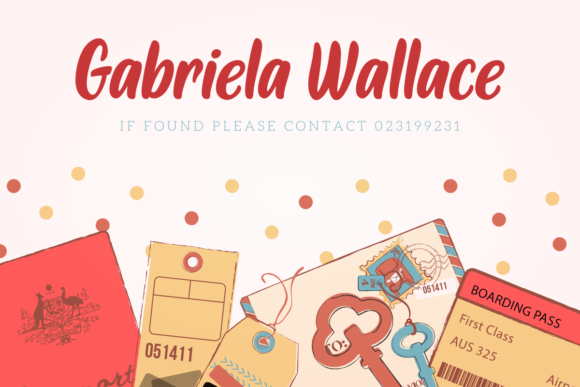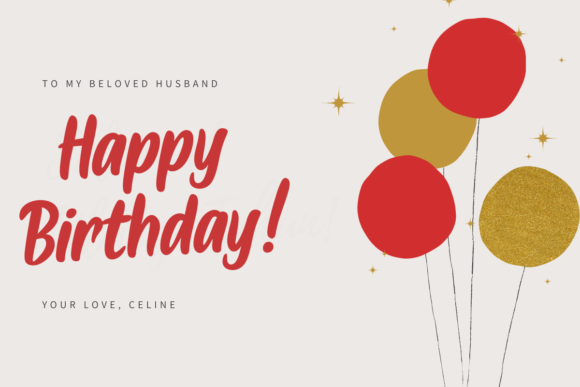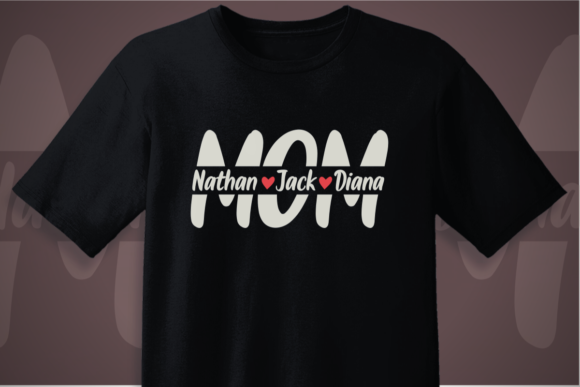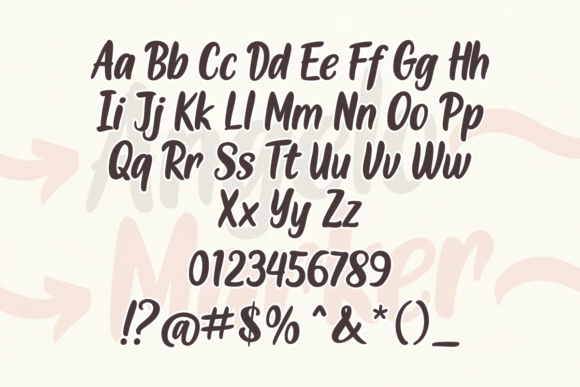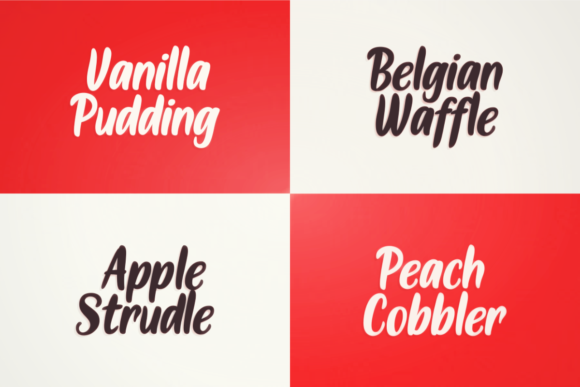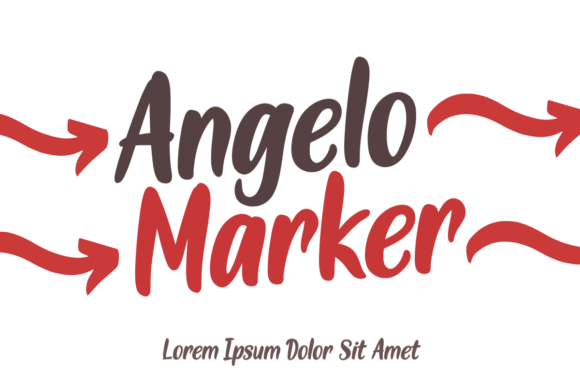
Introducing Angelo Marker Font: Elevate Your Designs with a Cool and Neat Lettered Paint Brushed Handwritten Font
Are you tired of using the same old fonts in your designs? Do you want to add a touch of personality and whimsy to your creations? Look no further than Angelo Marker Font, a cool and neat lettered paint brushed handwritten font that’s sure to become a staple in your font library. In this article, we’ll dive into the features and benefits of Angelo Marker Font, and explore how it can elevate your designs to the next level.
What is Angelo Marker Font?
Angelo Marker Font is a beautifully crafted handwritten font that’s designed to mimic the look and feel of paint-brushed letters. With its unique blend of elegance and playfulness, this font is perfect for designers and crafters who want to add a personal touch to their work. Whether you’re creating a logo, a poster, or a social media graphic, Angelo Marker Font is sure to make your design stand out from the crowd.
Key Features of Angelo Marker Font
- Handwritten style: Angelo Marker Font has a distinctly handwritten feel that’s perfect for creating personal and engaging designs.
- Paint-brushed texture: The font features a beautiful paint-brushed texture that adds depth and visual interest to your designs.
- Cool and neat lettering: The lettering in Angelo Marker Font is both cool and neat, making it perfect for designs that require a touch of sophistication.
- Versatile: This font can be used for a wide range of design projects, from logos and posters to social media graphics and more.
Benefits of Using Angelo Marker Font
So why should you choose Angelo Marker Font for your designs? Here are just a few benefits of using this amazing font:
- Elevate your designs: Angelo Marker Font has the potential to elevate any creation, adding a touch of personality and whimsy that’s sure to engage your audience.
- Stand out from the crowd: With its unique and eye-catching design, Angelo Marker Font is sure to make your design stand out from the crowd.
- Easy to use: This font is incredibly easy to use, and can be easily integrated into your design workflow.
- High-quality: Angelo Marker Font is a high-quality font that’s designed to deliver exceptional results, every time.
How to Use Angelo Marker Font in Your Designs
Using Angelo Marker Font in your designs is easy. Here are a few tips to get you started:
- Pair it with other fonts: Angelo Marker Font pairs well with a wide range of other fonts, so don’t be afraid to experiment and find the perfect combination for your design.
- Use it for headlines: The bold and playful nature of Angelo Marker Font makes it perfect for headlines and titles.
- Add a personal touch: Use Angelo Marker Font to add a personal touch to your designs, and make them more engaging and relatable.
| Font Name | Angelo Marker Font |
| Author | Deedeetype |
In conclusion, Angelo Marker Font is a cool and neat lettered paint brushed handwritten font that’s sure to become a staple in your font library. With its unique blend of elegance and playfulness, this font is perfect for designers and crafters who want to add a personal touch to their work. Whether you’re creating a logo, a poster, or a social media graphic, Angelo Marker Font is sure to elevate your designs to the next level. So why wait? Download Angelo Marker Font today, and start creating amazing designs that stand out from the crowd!